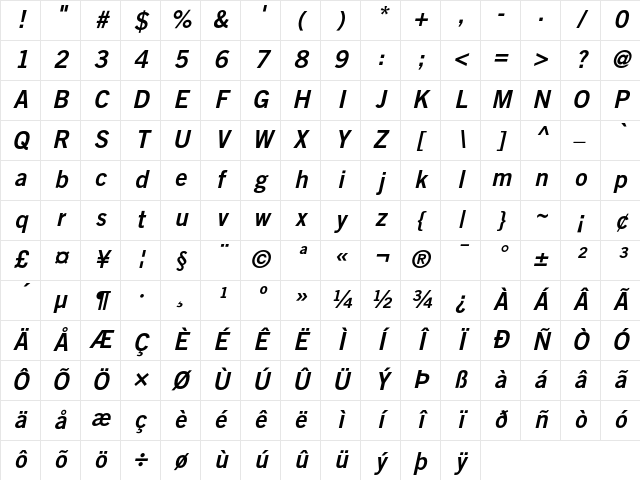
TradeGothic Regular
Complete TradeGothic Regular glyph index. Displaying only characters natively supported by TradeGothic Regular font.
Design Context for TradeGothic
TradeGothic takes a clean, functional approach - its unadorned letterforms prioritise legibility and work reliably across screen and print environments.